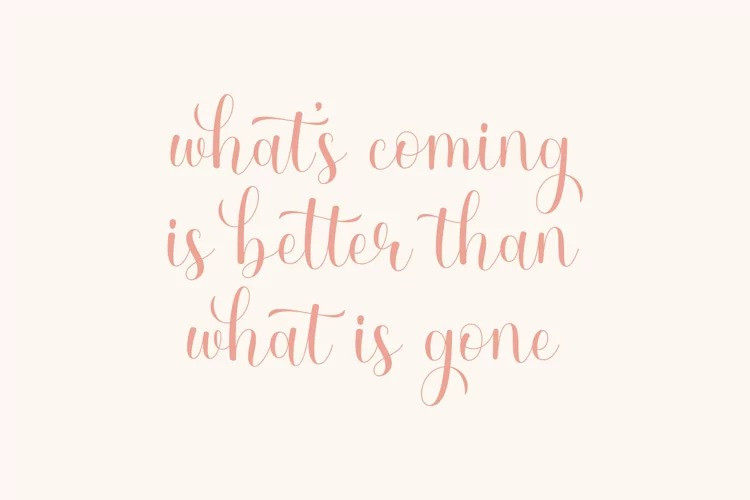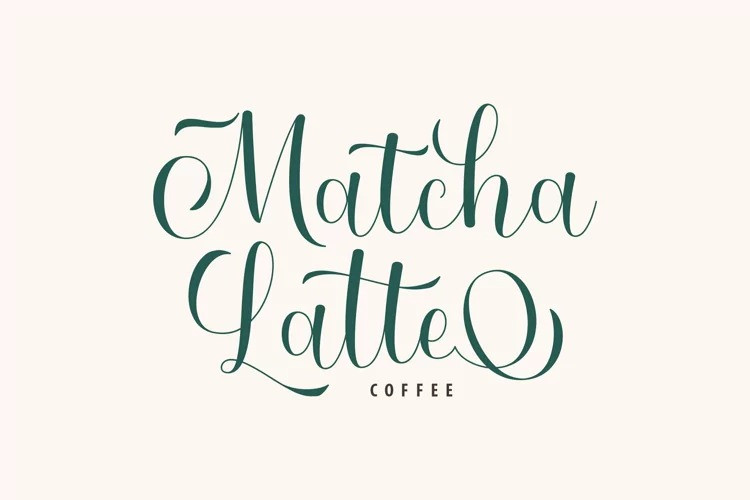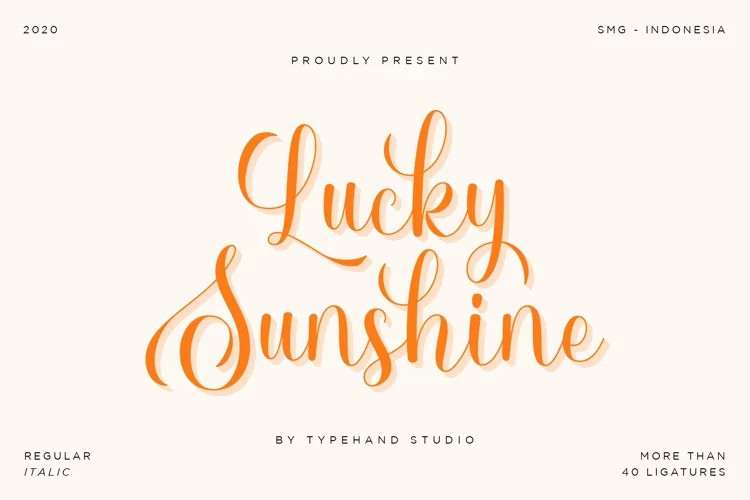
Lucky Sunshine Font
Lucky Sunshine Calligraphy Font is a beautiful handwritten typeface created by Typehand Studio with curly swash line style. it have more than 40++ ligature. Have Salt, SS01 – SS07, open type feature and support for international languages.Lucky Sunshine is perfect for branding projects, logo, wedding designs, social media posts, advertisements, product packaging, product designs, label, photography, watermark, invitation, stationery and any projects that need modern calligraphy taste.Stop reading this and let’s enjoy the font.